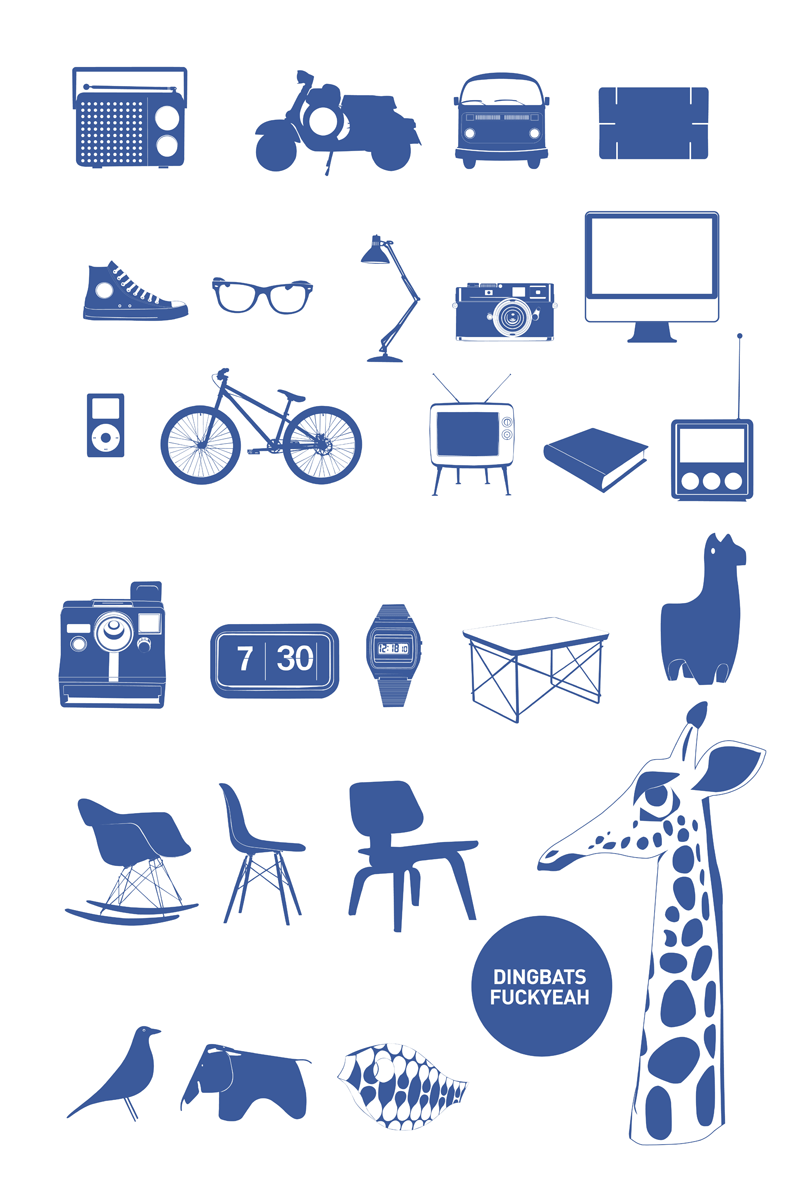
Preview and download Cool Stuff Font. Created by Didik Pratikno in Dingbats Various styles with 100% Free license.
Note by Didik Pratikno | |
a cool stuff on my mind and I have great respect for product designers like Charles Eames and Singgih Kartono so I made iconographic of their products, thank you for inspiring |